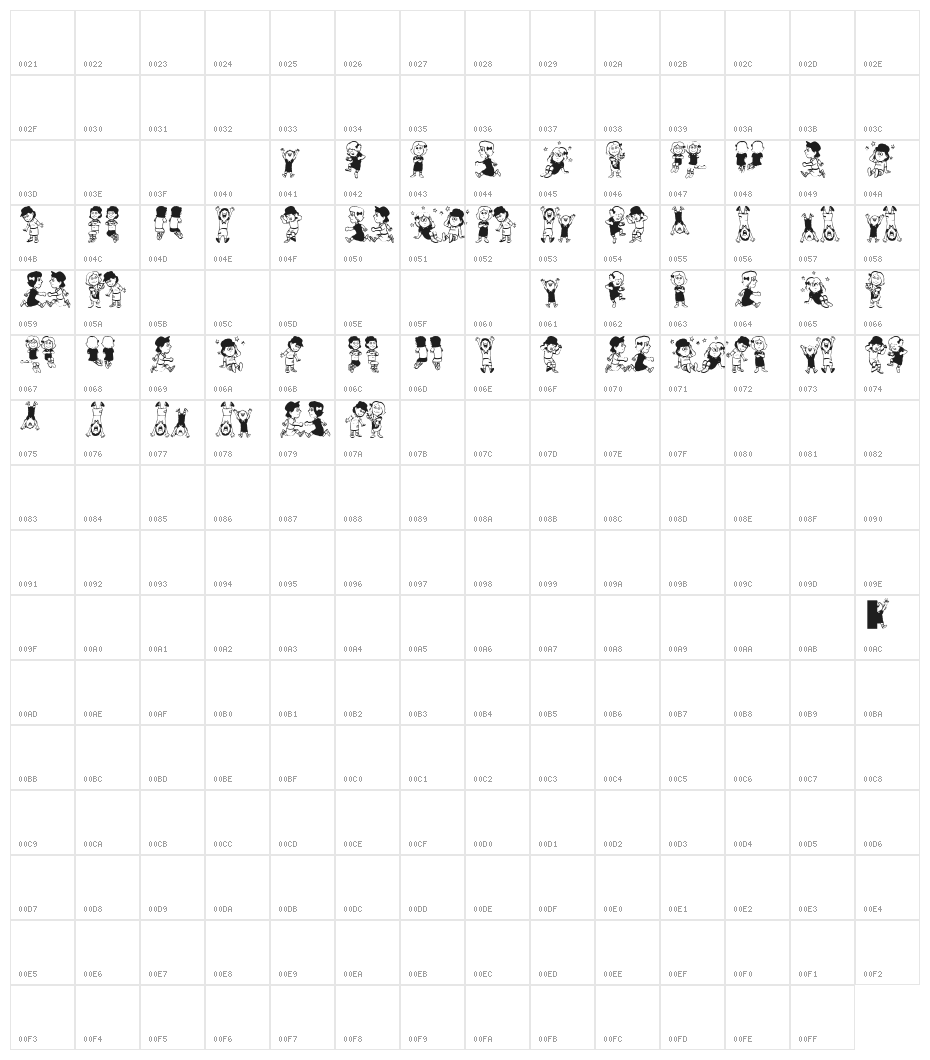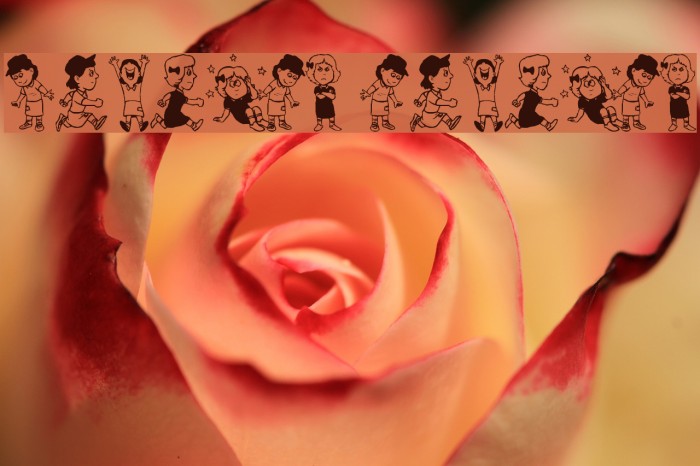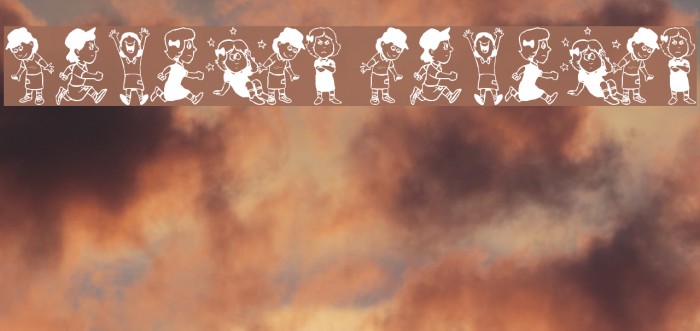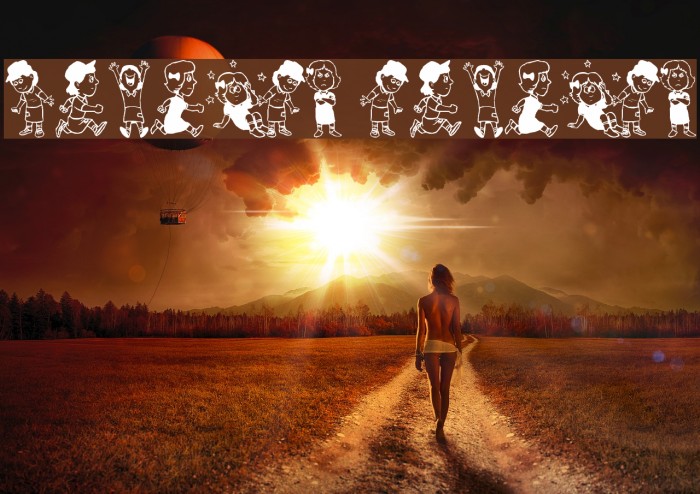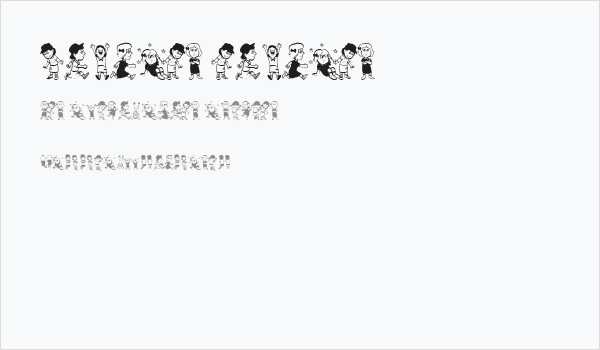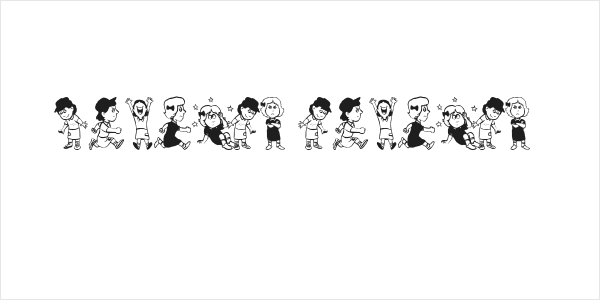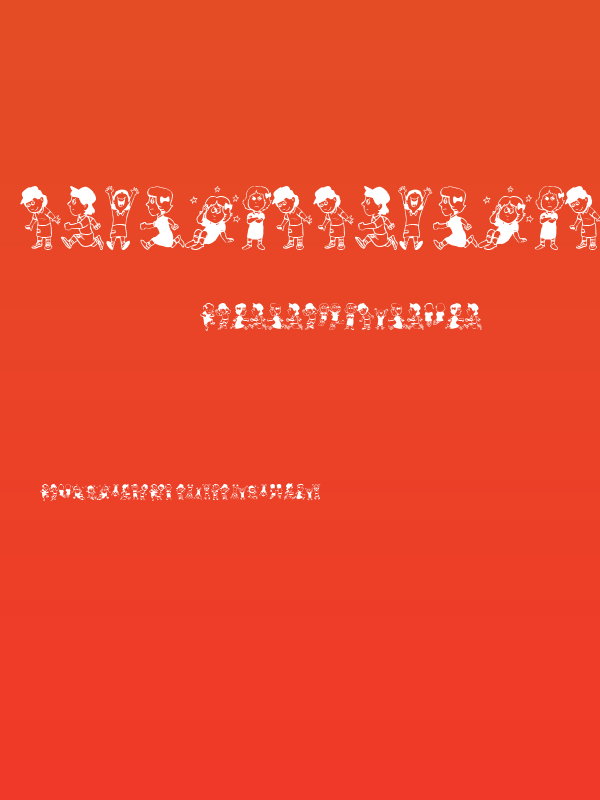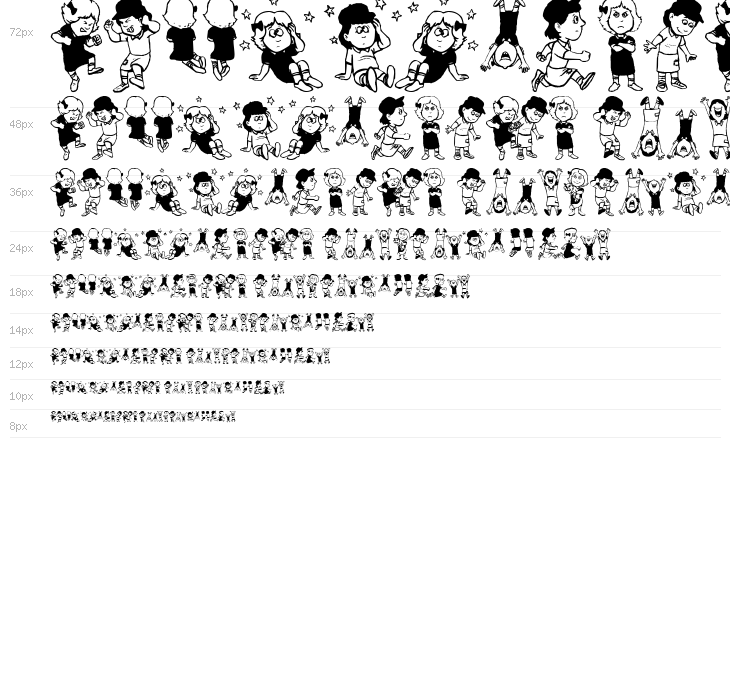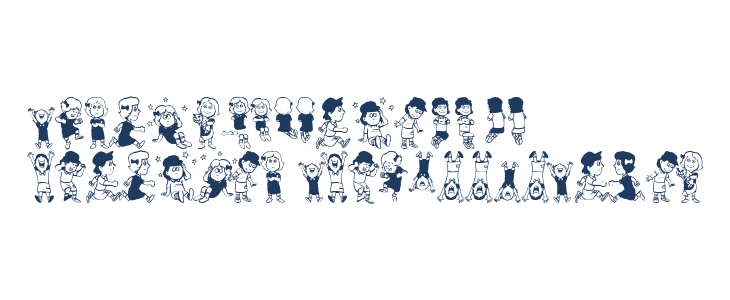
Kinderkinder Font
Kinderkinder Description
A playful and whimsical decorative font composed of cartoon children in various poses, forming each letter, number, and symbol with expressive, hand-drawn illustrations. The style is lively and informal, with each character featuring unique childlike gestures and interactions.
| Overall Style | Playful, Whimsical, Decorative |
| Use Case | Headlines, Posters, Invitations, Logos for childrenΓ’β¬β’s brands |
| Proposed Projects | ChildrenΓ’β¬β’s books, educational materials, birthday invitations, playful posters, daycare branding, and event flyers. |